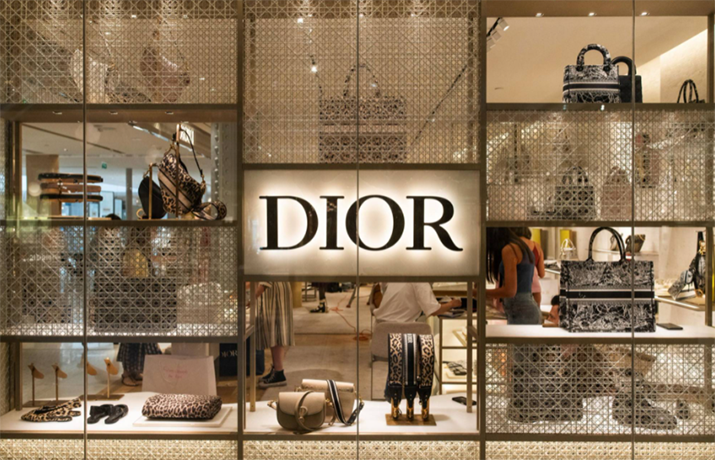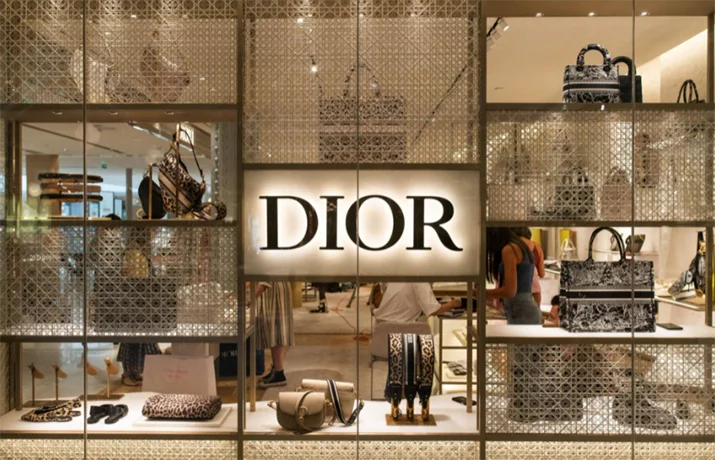
Introducing Dior Font! Dior is a French luxury fashion house controlled and headed by French businessman Bernard Arnold, the world’s largest luxury group.
The company was founded in 1946 by French fashion designer Christian Dior, originally from Normandy. The brand only sells shoes and clothes and can only be purchased at Dior stores.
Dior brand logo fit is very simple and stylish, and with only four-letter words in capital letters, it has the power to attract consumers.
Nicolas Cochin Regular is the font used in the Dior logo. That was designed by Georges Peignot and shared by URW Type Foundry.
In addition to its delicious styling, it can be used for a variety of purposes. Like, creating a business card, printing objects, product designs, labeling, logo making, banner ads, websites templates, photography, watermarks, special events, etc.
This typeface will make a good pair with other serif fonts like Otama E.p. Font by Tim Donaldson and Junicode Font by Peter S. Baker
Nicolas Cochin Regular Font comes in four different styles that also support 307 beautifully designed characters.